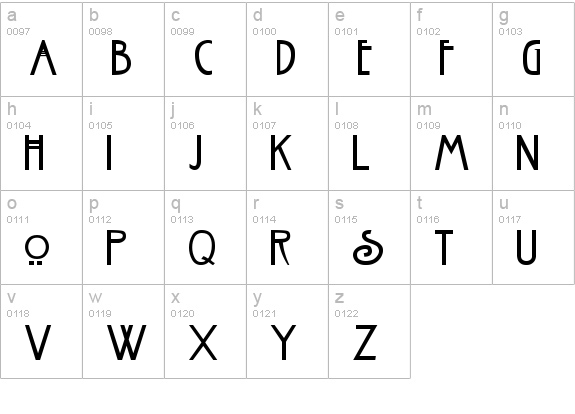
Nouveau font is a beautifully crafted typeface that exudes elegance and sophistication. With its sleek lines and modern aesthetic, Nouveau is perfect for adding a touch of class to any design project. This versatile font is suitable for a wide range of applications, from branding to editorial design. What sets Nouveau font apart is not only its stunning design, but also the fact that it is completely free to download. That's right, you can access this premium font at no cost on FontsMarket.com. Whether you're a professional designer looking to elevate your work or a hobbyist looking to spruce up your projects, Nouveau font is the perfect choice. Download it today and start creating stunning designs that stand out from the crowd.